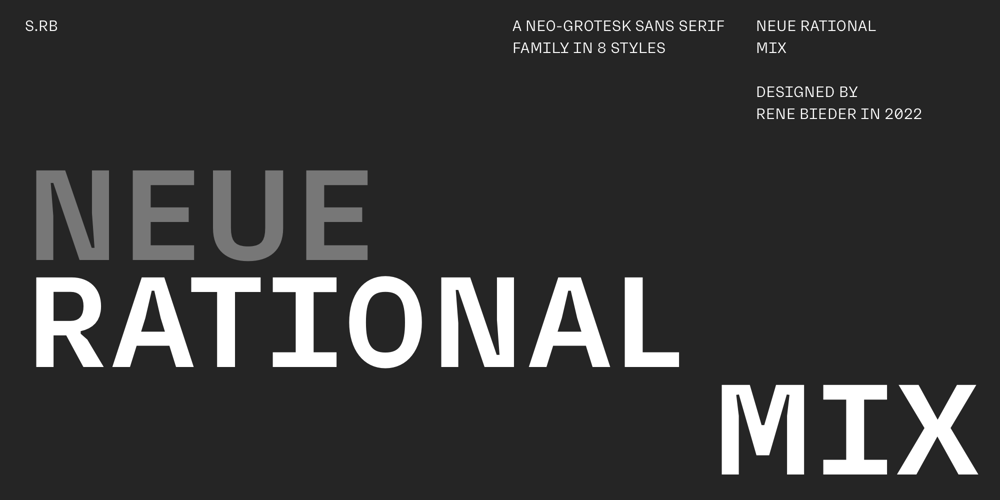
Neue Rational Mix Font Family was designed by René Bieder and published by René Bieder. Neue Rational Mix contains 8 styles and family package options. With Neue Rational Mix, the aesthetic of a fixed-width font intertwines harmoniously with the functionality of a proportional font, resulting in a truly unique typographic experience. This versatile typeface revels in the realm of small text sizes, where its meticulous design shines through with utmost clarity and legibility. However, it doesn’t shy away from larger settings either, confidently flexing its typographic muscles to deliver impactful and commanding visual statements.As a true modernist, Neue Rational Mix inherits the essence of its esteemed sibling, Neue Rational, fusing the ingenuity of human craftsmanship with the precision of a machine. It embodies the spirit of thoughtful design, meticulously considering the relationship between form and function. The result is a typeface that not only captivates with its sleek aesthetics but also excels in practicality and usability.